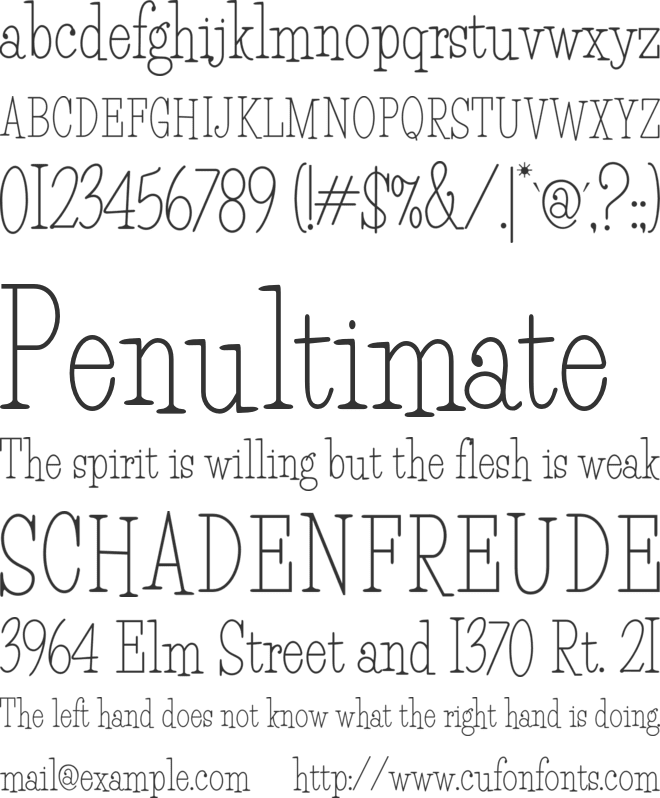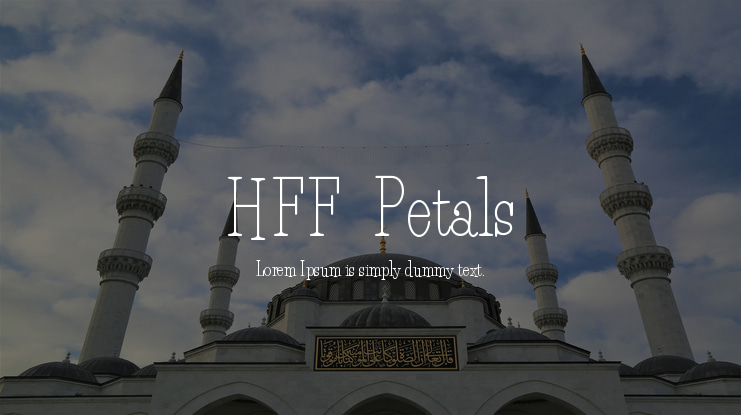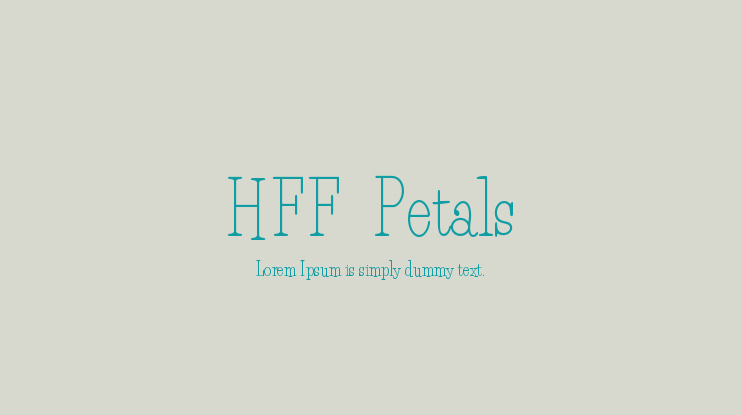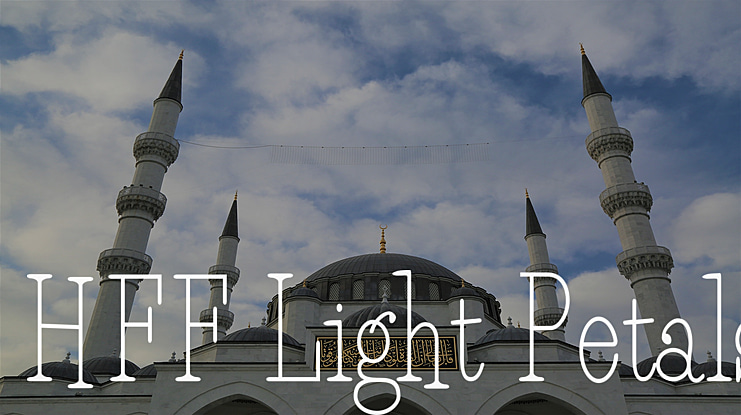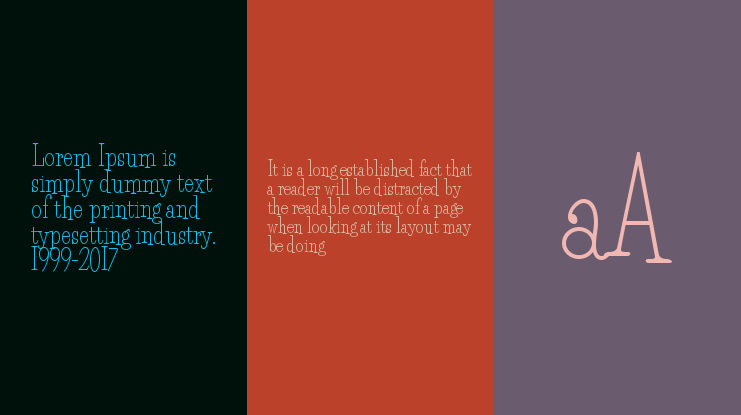
HFF Petals Font
HFF Light Petals is based on Pastel, from page 90 of Brushstroke and Free-Style Alphabets: 100 Complete Fonts by Dan X. Solo, first published by Dover Publications in 1977. Pastel (Pastel Bounce) is also featured on page 92 of The Solotype Catalog of 4,147 Display Typefaces, also by Dan X. Solo.